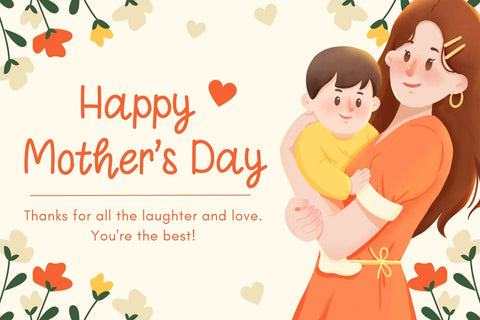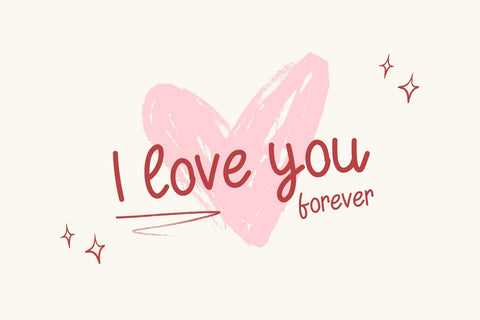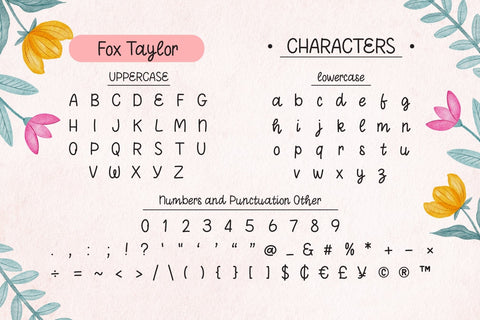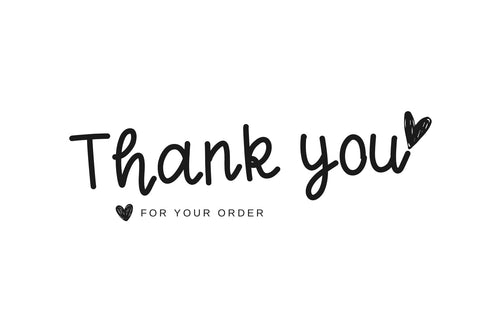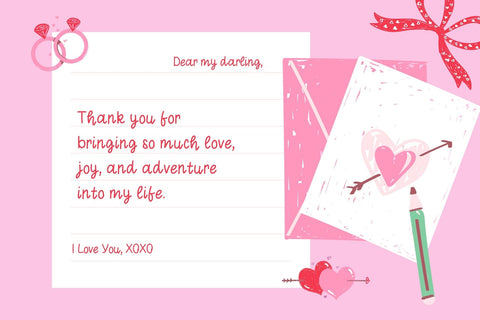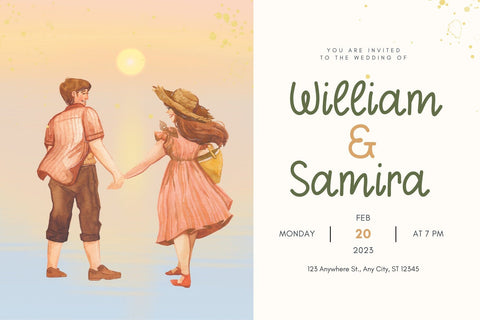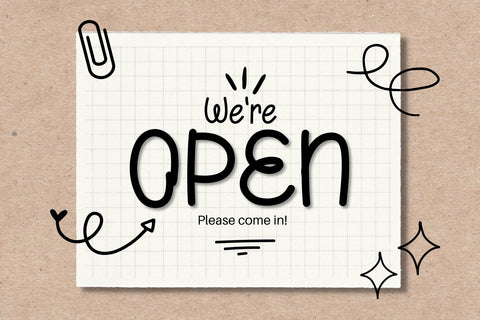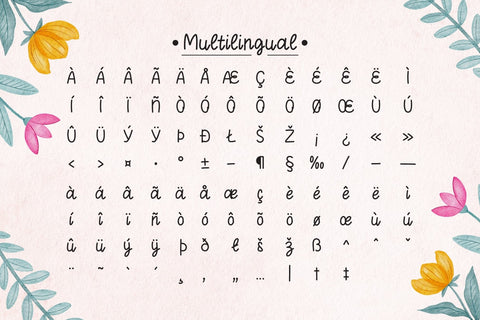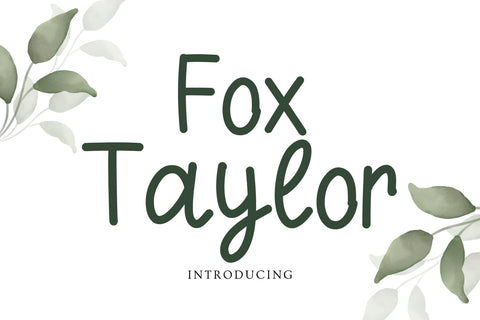
Fox Taylor Font
Fox Taylor Font is a casual, and monoline handwritten font. this font is the perfect choice for a wide range of creative projects. Whether you’re creating inspirational quotes, captivating headings, engaging blogs, striking logos, or inviting invitations, Fox Taylor adds a delightful touch to any project.